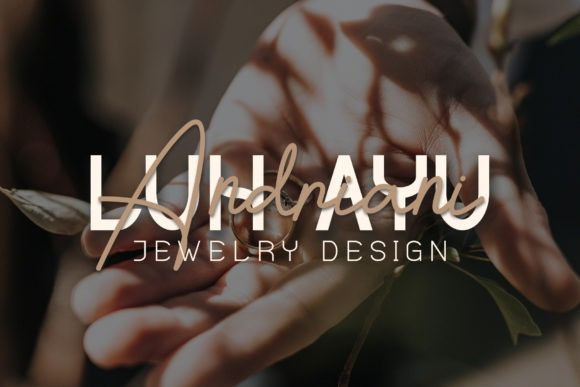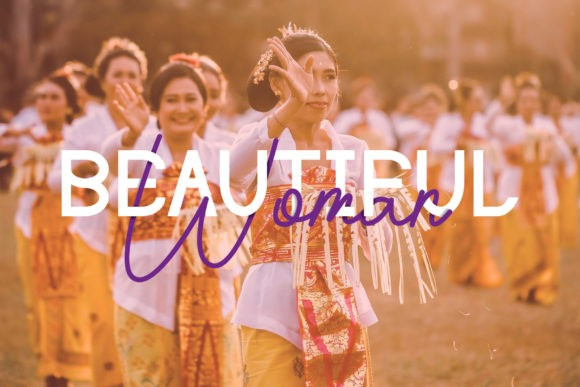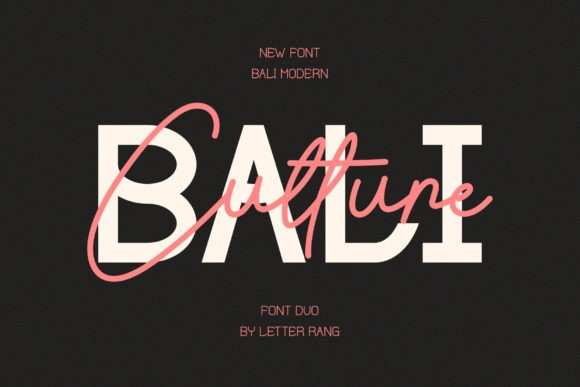
Bali Culture Font
Bali Culture Font is a duo font (display and script). Together or apart, these fonts are ideal for adding a chic and cheery touch to your crafts. This font is PUA encoded which means you can access all glyphs and swashes with ease!